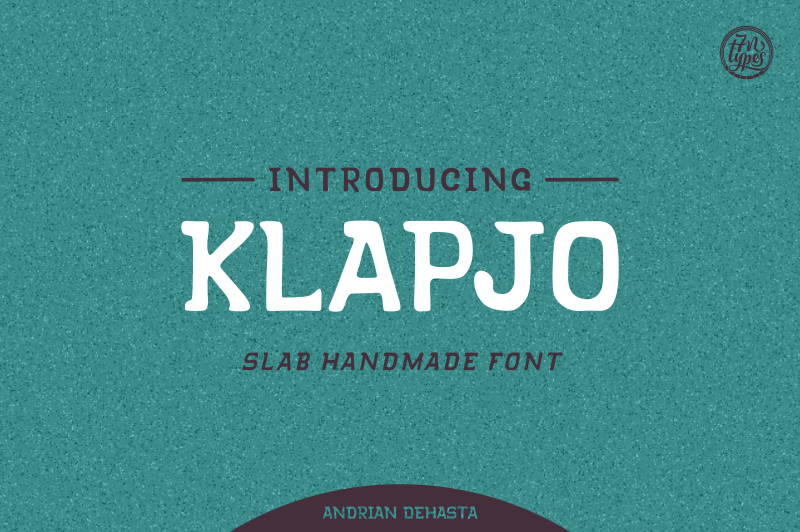
Kapjo, designed by Andrian Dehasta & Situjuh Nazara, is a dapper slab serif font, handmade with delicate attention to detail. This font looks great standalone or combined with other fonts for well executed display designs. Use this font for personal use free. And for commercial use license, visit Andrian's Store on Creative Fabrica: https://www.creativefabrica.com/designer/andrian-dehasta Thank you |